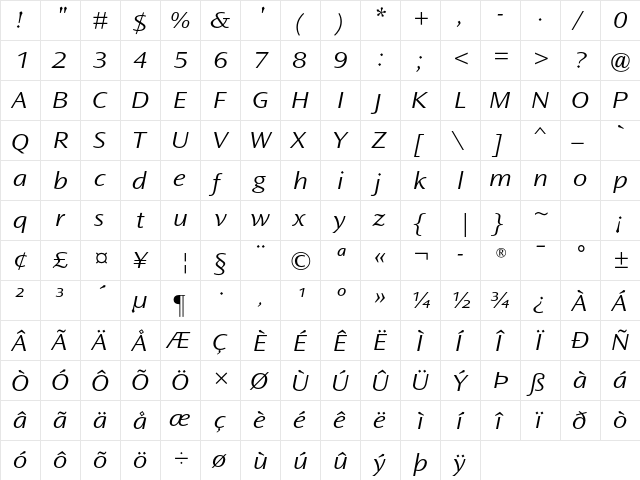
Ocean Sans Std Light Extended Italic Font Preview
| Designer | Chong Wah |
Design Context for Ocean Sans Std Typeface
Ocean Sans Std takes a measured approach to typography — its balanced proportions and neutral character make it a reliable workhorse for both digital and print work. Its italic angle brings a sense of urgency and motion to the letterforms. The delicate stroke weight brings airiness and refinement to layouts.
Pro Tip: Try Ocean Sans Std for annotation and caption copy alongside an upright companion — the contrast in angle creates a dynamic but ordered typographic system.